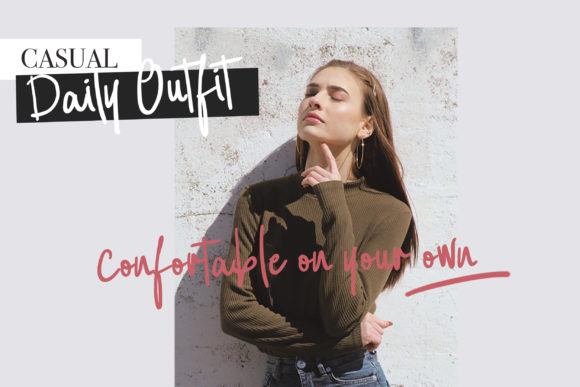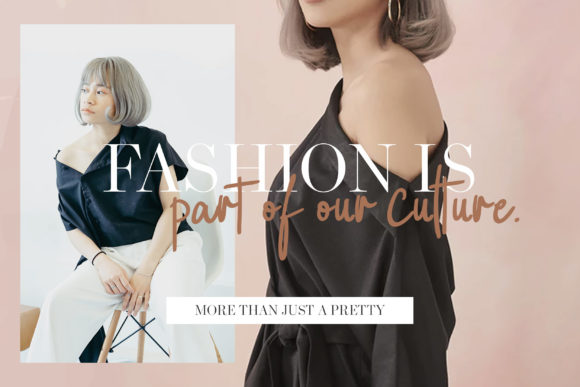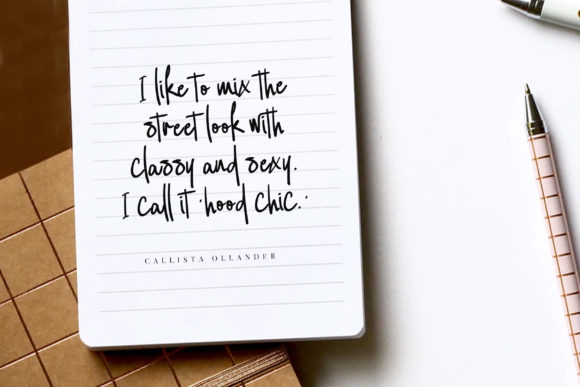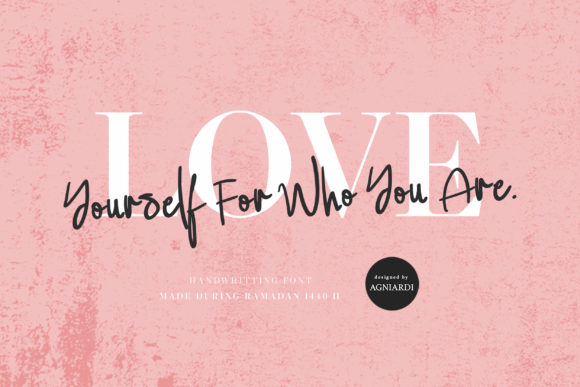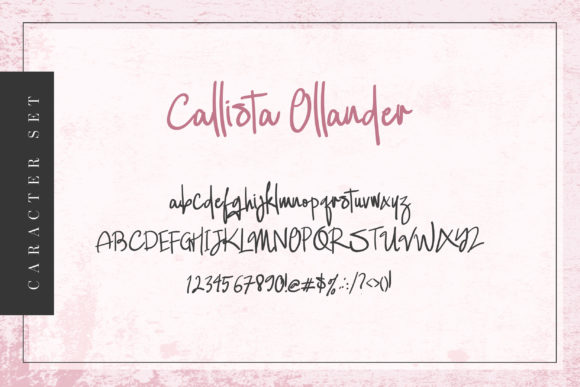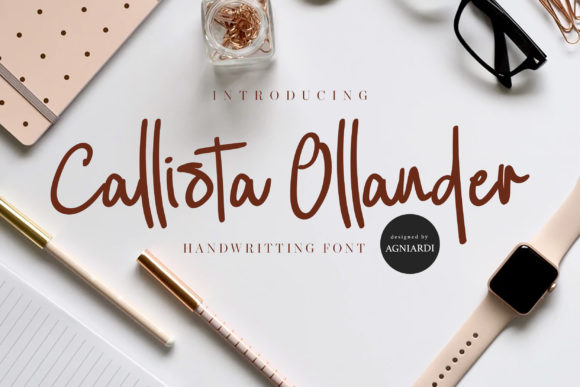
Introducing Callista Ollander Font: Elevate Your Designs with Elegance
In the realm of typography, a font can make or break a design project. The right font can add a touch of sophistication, whimsy, or elegance, turning a mundane design into a standout masterpiece. This is where Callista Ollander Font comes into play. Dubbed as a modern and elegant handwritten font with an authentic feel, Callista Ollander is designed to transform any design project into a true standout. In this article, we’ll dive deep into the world of Callista Ollander Font, exploring its features, uses, and the magic it can bring to your designs.
The Essence of Callista Ollander Font
Callista Ollander Font is a beautifully crafted handwritten font that exudes modernity and elegance. Its authentic feel sets it apart from other fonts in the market, making it a versatile choice for a wide range of design projects. Whether you’re working on a branding project, a wedding invitation, a packaging design, or a digital platform, Callista Ollander Font can add that much-needed touch of sophistication and personality.
Key Features of Callista Ollander Font
- Modern and Elegant: Callista Ollander boasts a contemporary look with an elegant twist, making it perfect for designs that require a touch of luxury and refinement.
- Handwritten with Love: The font’s handwritten nature gives it a personal and authentic feel, allowing designers to add a human touch to their projects.
- Versatile: Its versatility means it can be used across various design projects, from digital to print, and everything in between.
- Easy to Read: Despite its elegant and modern look, Callista Ollander maintains excellent readability, making it suitable for both headings and body text.
Who Can Benefit from Callista Ollander Font?
Callista Ollander Font is a valuable asset for a wide range of professionals and enthusiasts. Here are a few groups who can particularly benefit from this beautiful font:
- Graphic Designers: Looking for a font that can elevate their designs and make them stand out, Callista Ollander is an excellent choice.
- Wedding Planners and Stylists: For creating stunning wedding invitations, programs, and decor signage that reflect the elegance of the occasion.
- Digital Content Creators: Bloggers, YouTubers, and social media influencers can use Callista Ollander to add a personal touch to their digital content.
- Crafters and DIY Enthusiasts: For making handmade cards, journals, and other craft projects that require a touch of elegance.
How to Use Callista Ollander Font Effectively
To make the most out of Callista Ollander Font, here are a few tips:
- Pair it with Neutrals: Use Callista Ollander as an accent font against neutral backgrounds to make it pop.
- Mix and Match: Experiment with different font sizes and weights to create visual hierarchy and interest.
- Customize: Don’t be afraid to tweak the font to fit your project’s tone. Adjusting colors, spacing, and adding effects can enhance its appeal.
Callista Ollander Font is more than just a typeface; it’s a design statement. Its modern elegance, paired with an authentic handwritten feel, makes it a powerful tool for designers and crafters alike. Whether you’re looking to add a touch of sophistication to your branding, create memorable wedding stationery, or simply elevate your digital content, Callista Ollander Font is an excellent choice. With its versatility and aesthetic appeal, it’s set to become a favorite in the world of design. So, why wait? Dive into the world of Callista Ollander Font and watch your designs transform into true standouts.